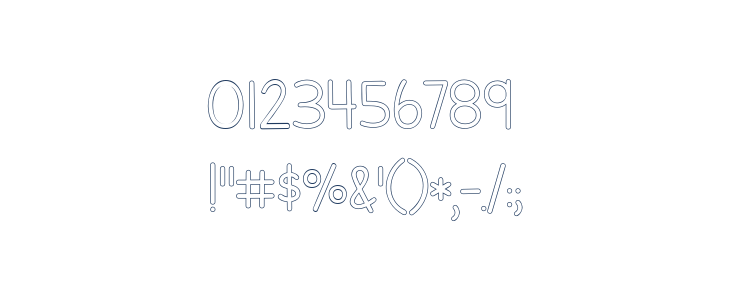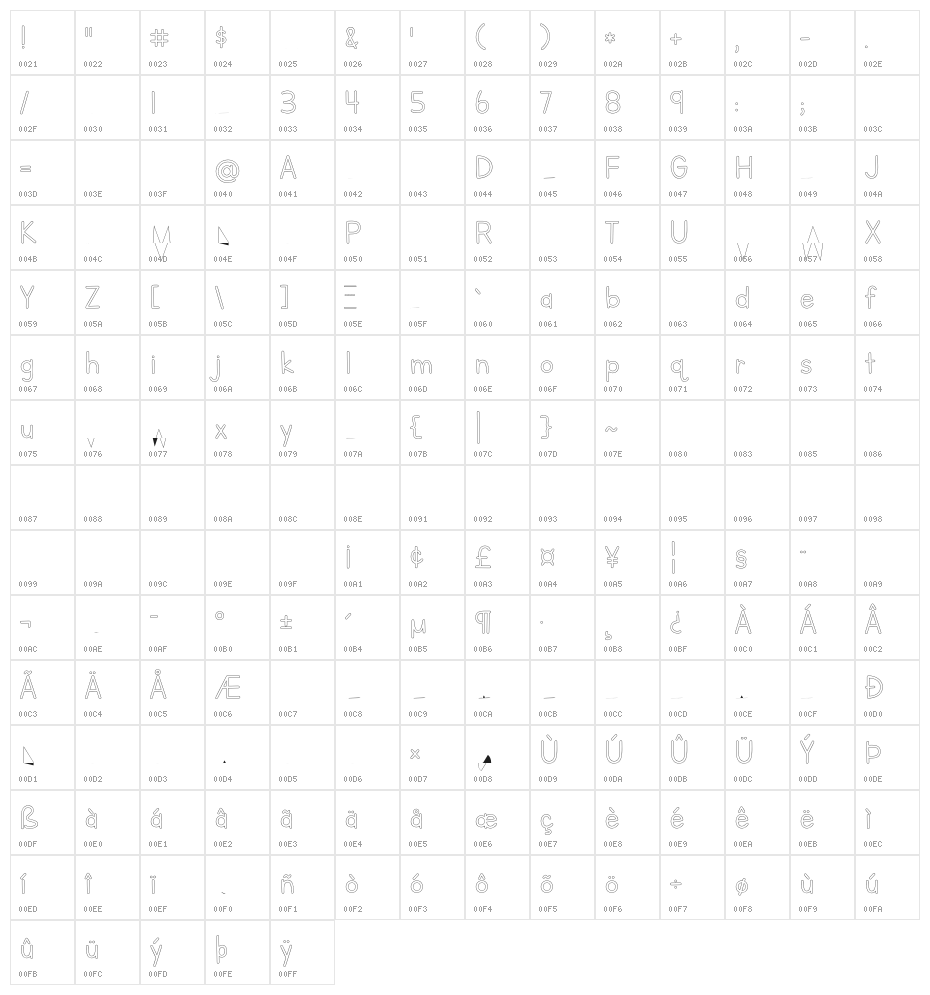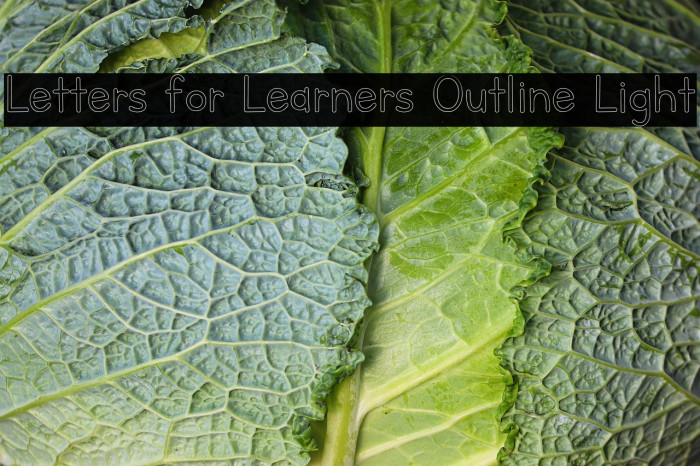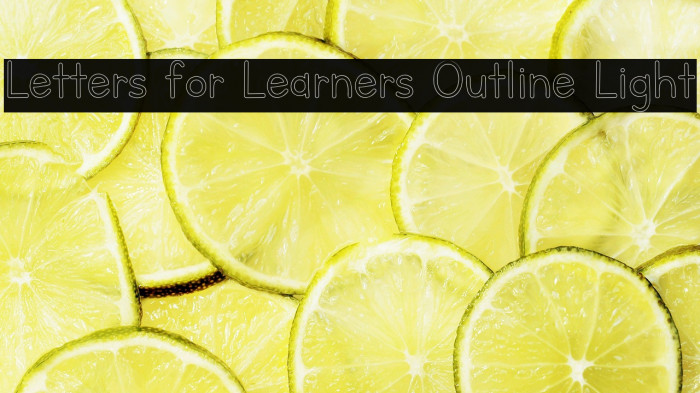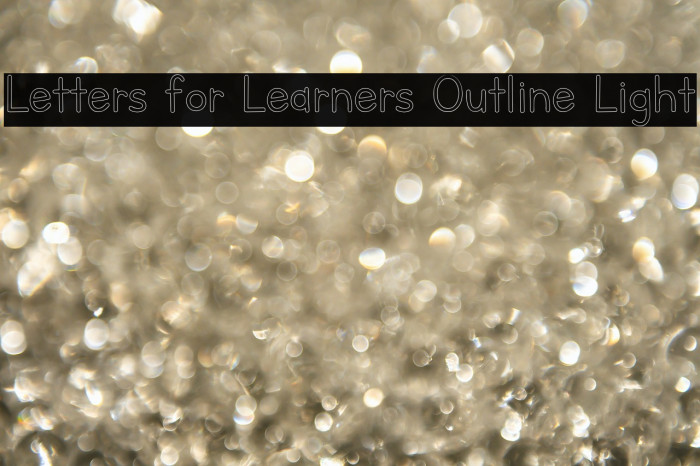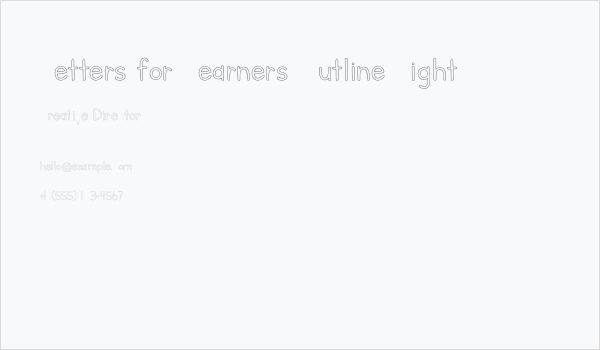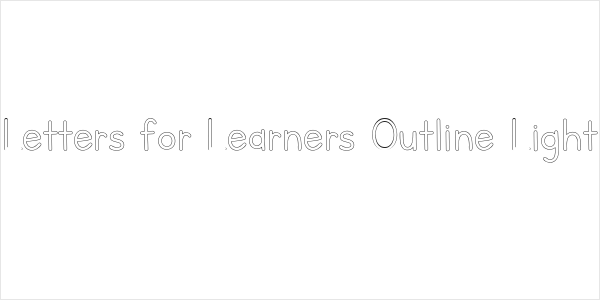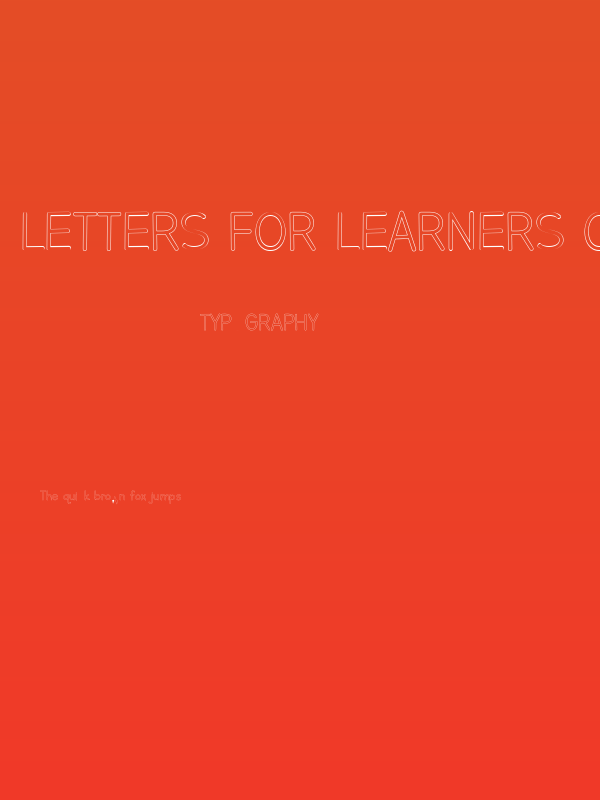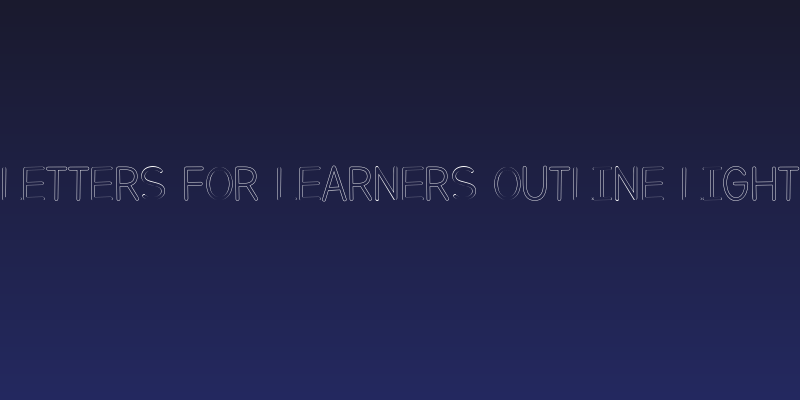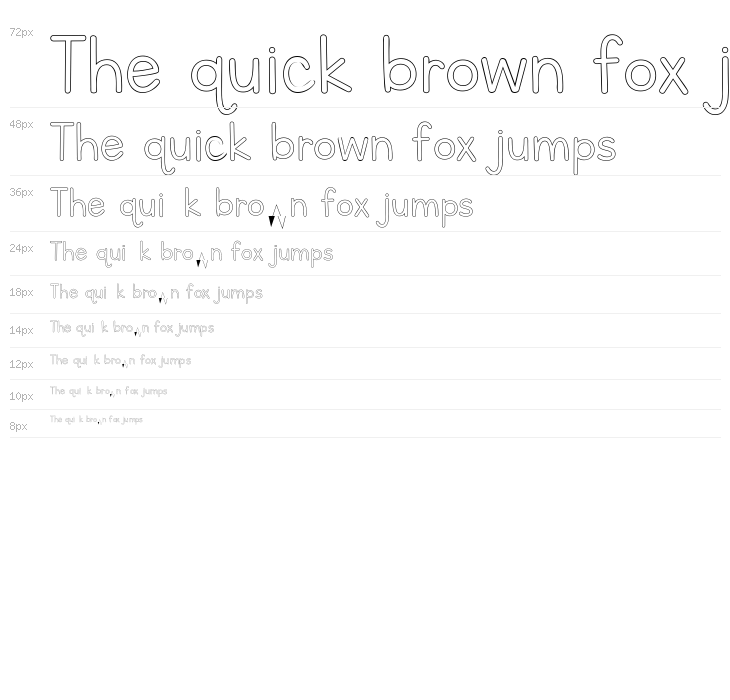
Letters for Learners Outline Light Font
Letters for Learners Outline Light Description
This font features a clean and simple outline style, making it ideal for educational purposes. The characters are evenly spaced and maintain a consistent height, which aids in readability. The rounded edges and uniform stroke width give it a friendly and approachable appearance. The font includes a full set of uppercase and lowercase letters, numbers, and a variety of special characters. Its light outline design is perfect for coloring activities or teaching letter recognition to young learners. The simplicity of the design ensures that it remains legible even at smaller sizes.
| Use Case | Educational materials, children's books, learning apps. |
| Proposed Projects | Ideal for educational materials, children's books, and learning apps. |